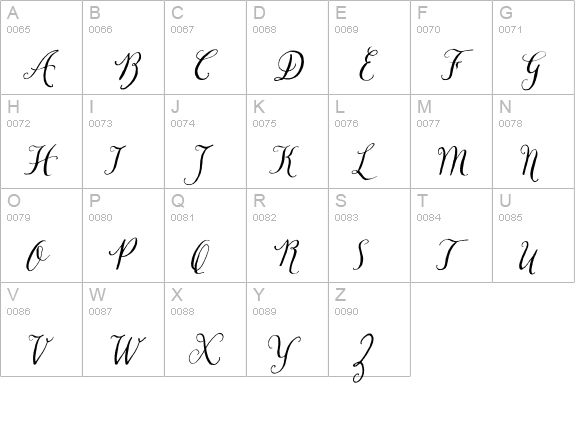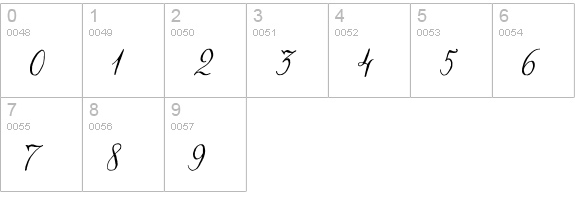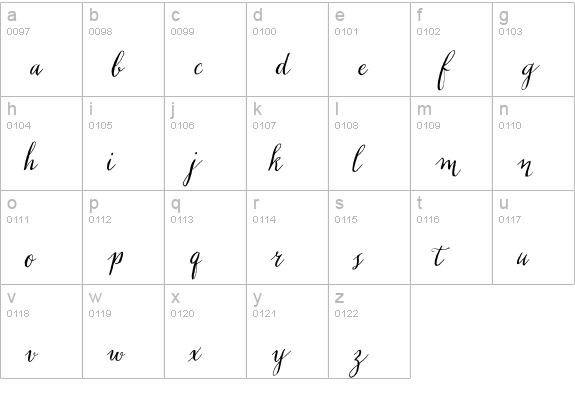
Chameleon Pen Italic is a distinctive, italic variant in the Chameleon typeface family \xE2\x80\x94 well suited to design and typography projects.
Chameleon Pen Italic font is a versatile and stylish typeface that exudes elegance and sophistication. Its sleek, flowing lines and unique design make it perfect for adding a touch of class to any project. Whether you're designing a wedding invitation, creating a logo, or crafting a stylish poster, Chameleon Pen Italic font will bring a sense of refinement to your work. The best part? Chameleon Pen Italic font is available for free download at FontsMarket.com. This means you can easily access this beautiful font and use it in your projects without any cost. Don't miss out on this opportunity to elevate your designs with the timeless charm of Chameleon Pen Italic font. Download it today and start creating stunning visuals that will leave a lasting impression.